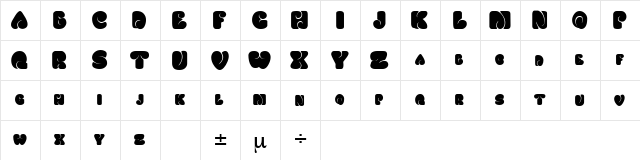
FATSOcaps Regular
Design Context for FATSOcaps Typeface
FATSOcaps is a composed and adaptable typeface that performs quietly and consistently across a wide range of design contexts.